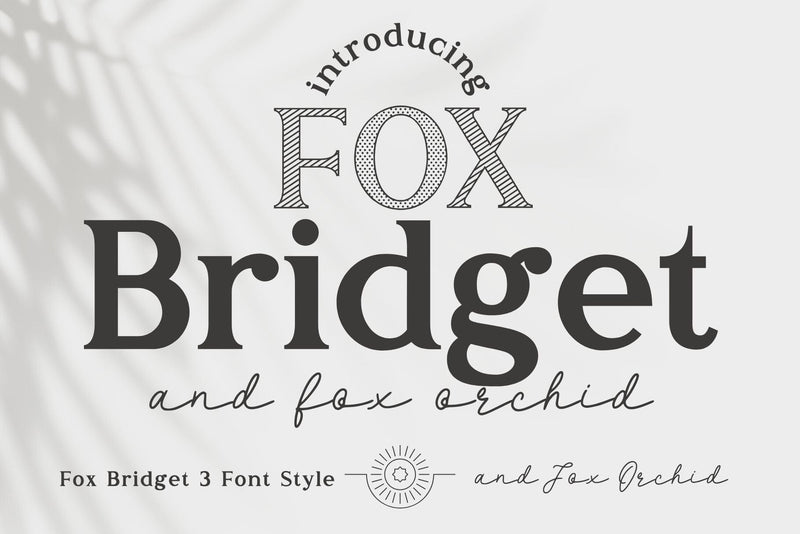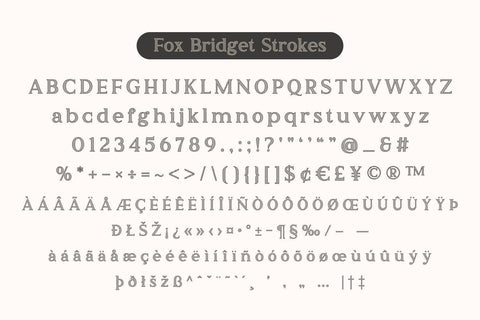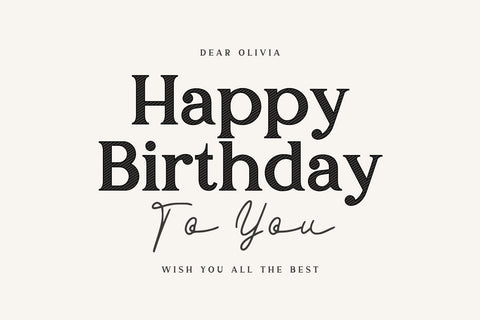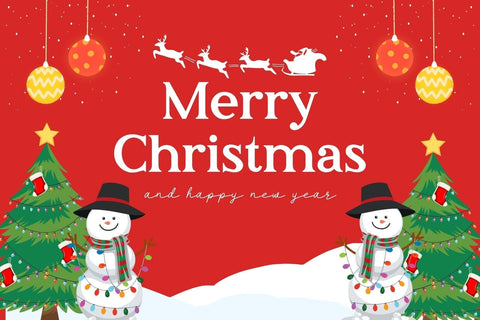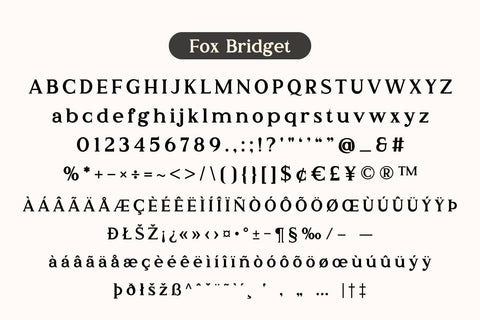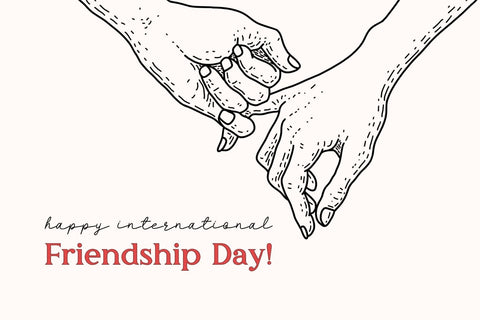
Fox Bridget and Fox Orchid Font
Fox Bridget and Fox Orchid. This elegant duo combines the classic charm of a bold serif with the flowing beauty of a handwritten script, making it ideal for a variety of creative projects. Fox Bridget: A sophisticated serif font with three unique styles, crafted to give your designs a modern yet timeless feel. Its bold and clean lines make it perfect for logos, headlines, and branding. Fox Orchid: A soft, delicate script font. It's ideal for invitations, quotes, or any project that needs a touch of elegance and whimsy. Perfect for wedding designs, social media posts, branding projects, and more, this duo is versatile, stylish, and effortlessly professional. Create stunning designs that leave a lasting impression with Fox Bridget + Fox Orchid.